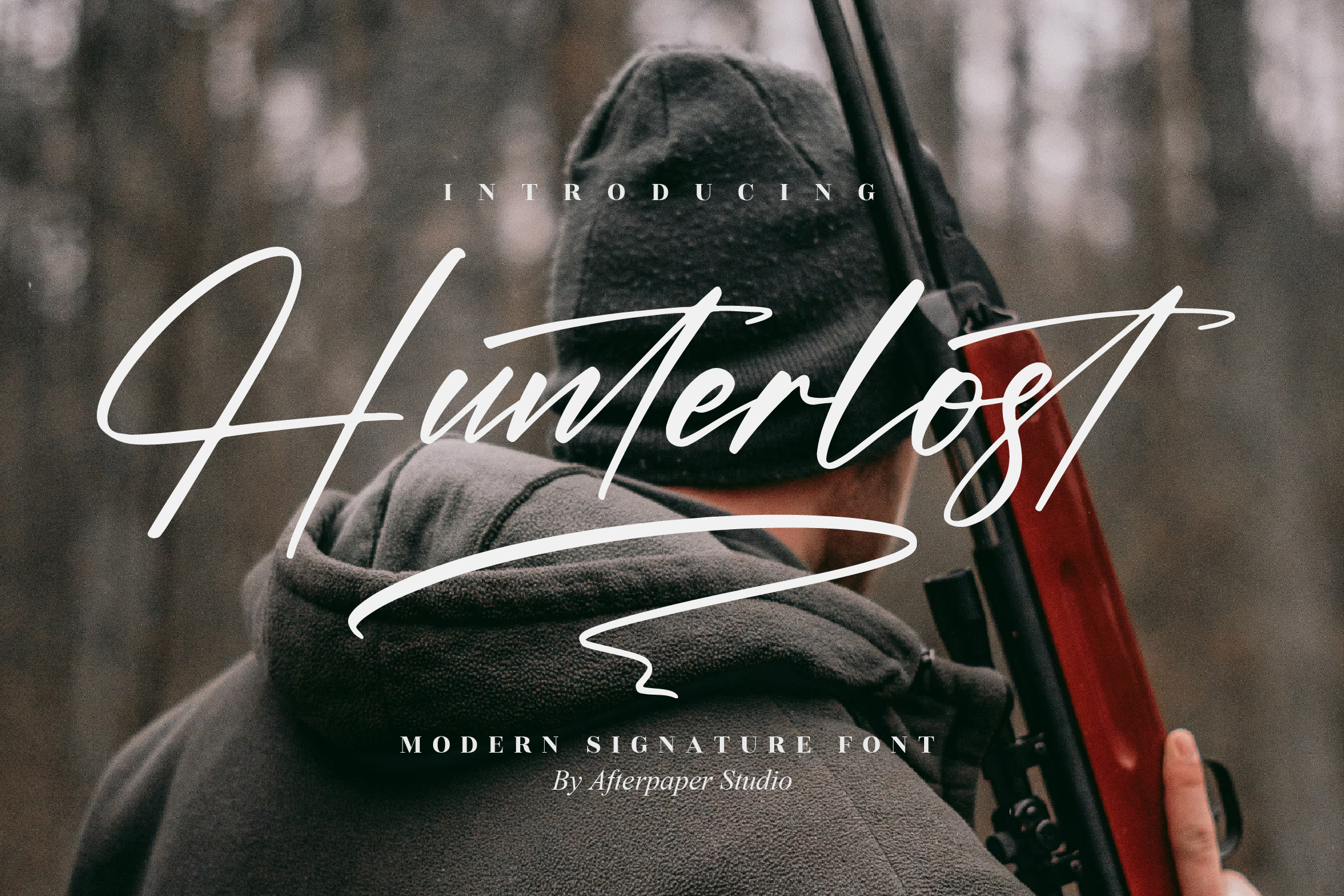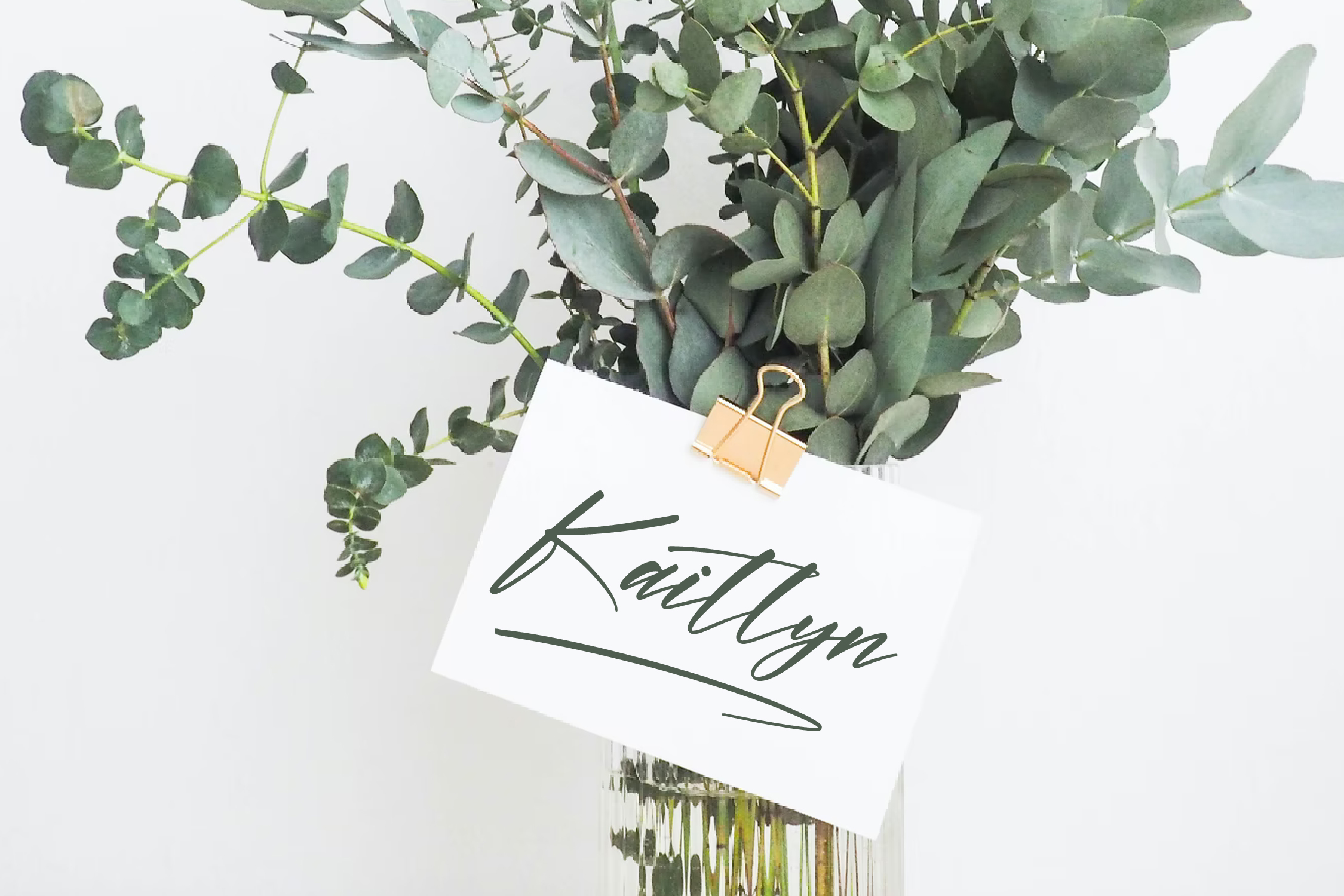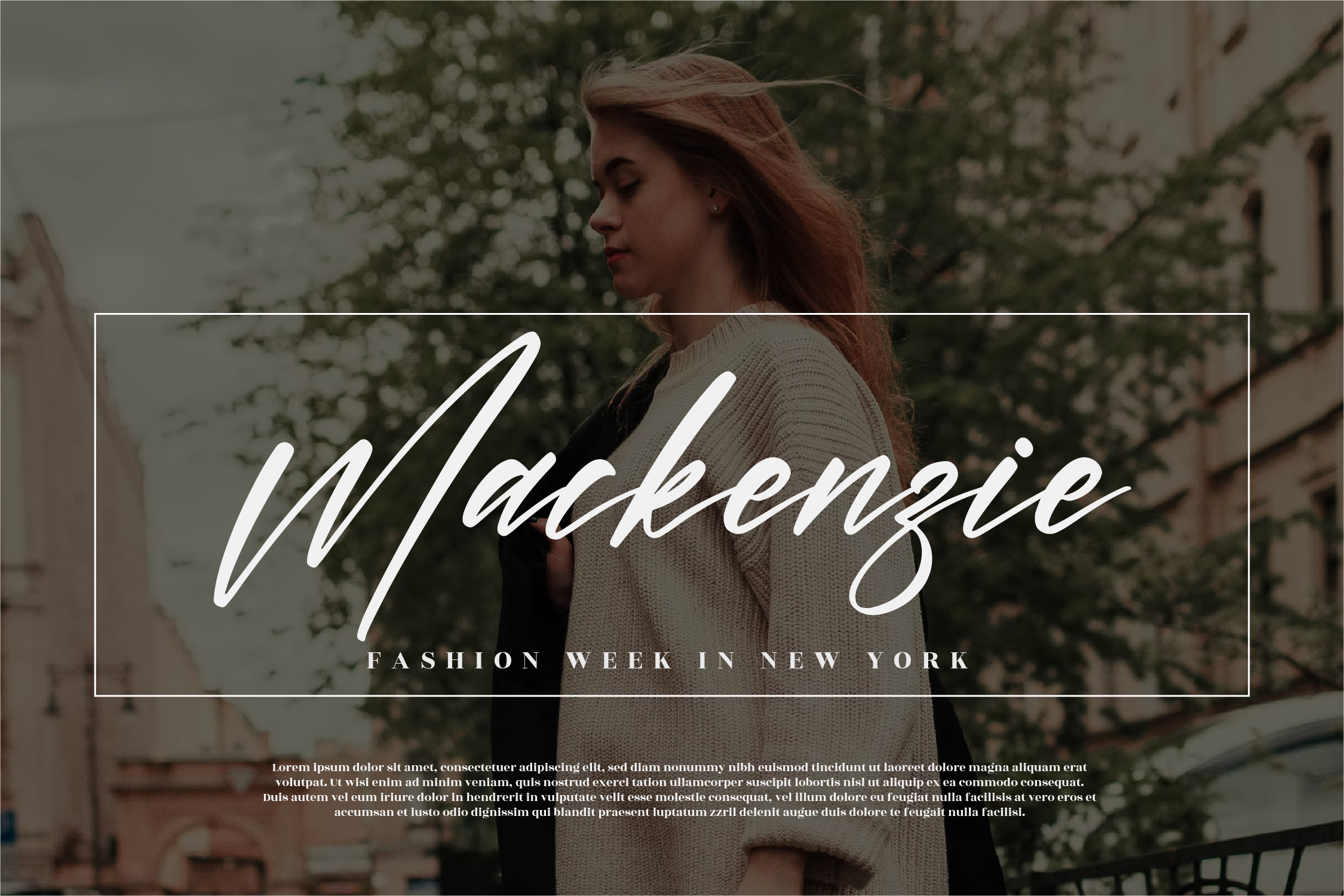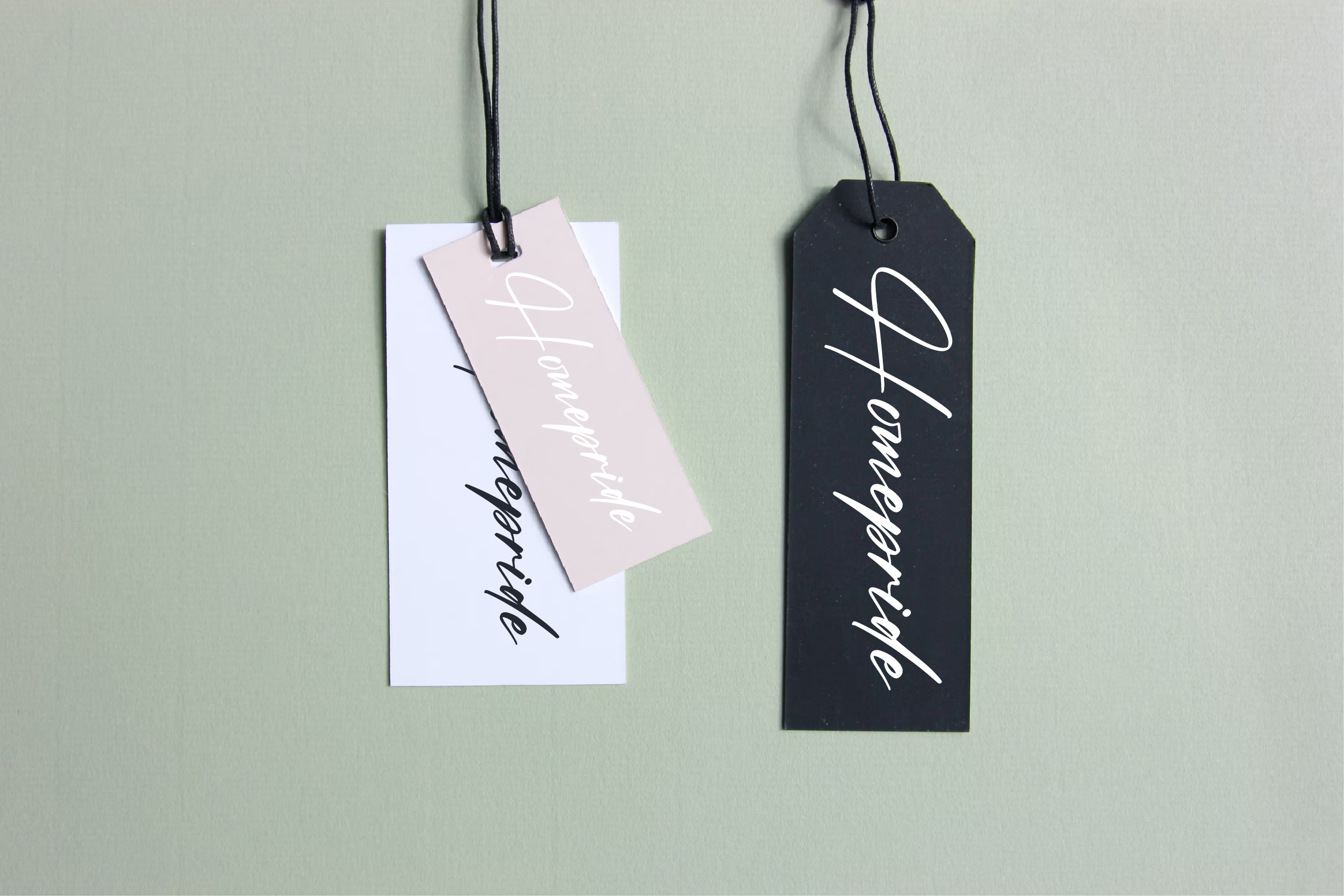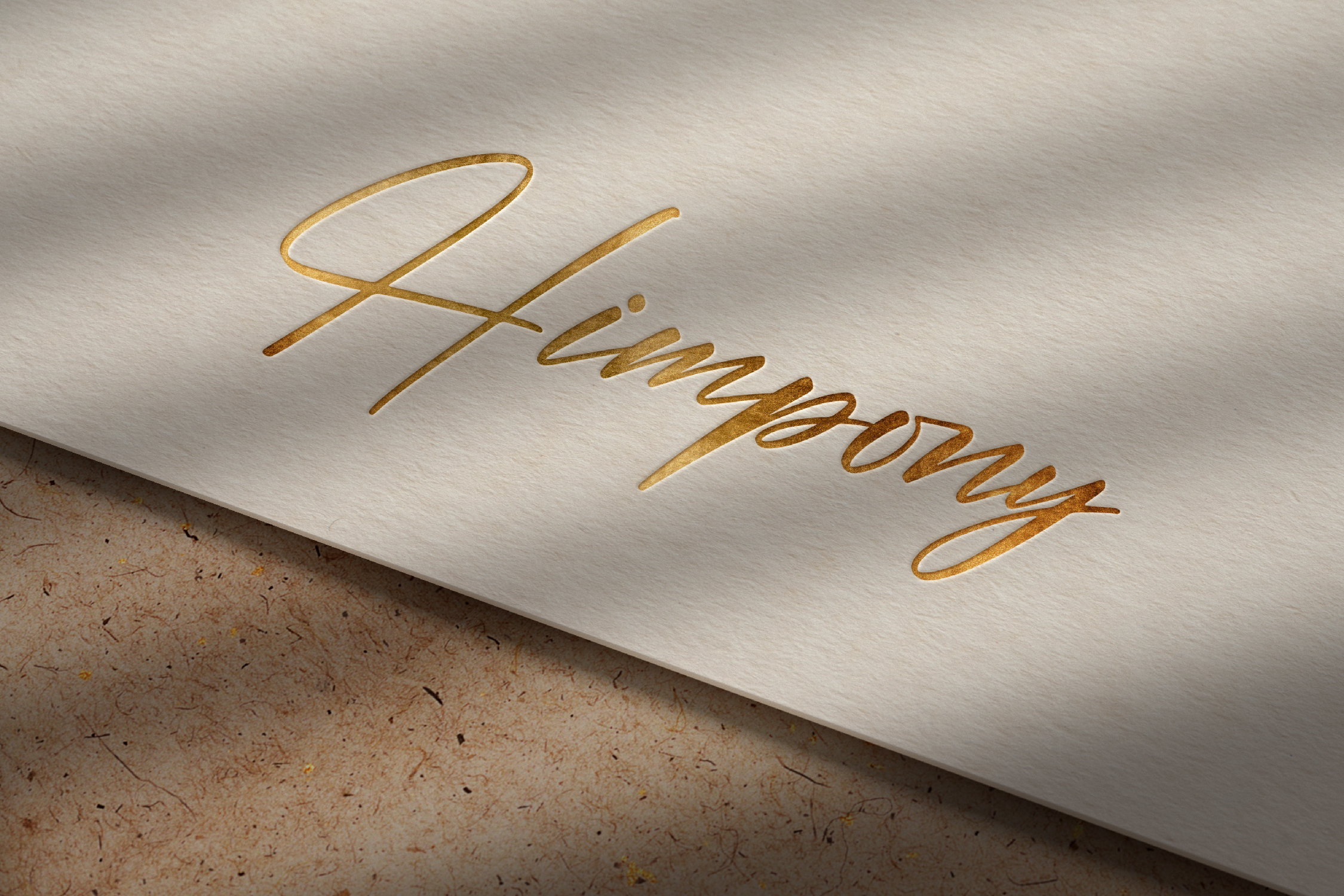
Hunterlost Font
Hunterlost Script Font
This is a beautiful script font, suitable for any projects such as: logos, branding projects, homeware designs, product packaging, mugs, quotes, posters, shopping bags, t-shirts, book covers, name card, invitation cards, greeting cards, label, photography, watermark, special events, and all your other lovely projects that need a beautiful script taste.